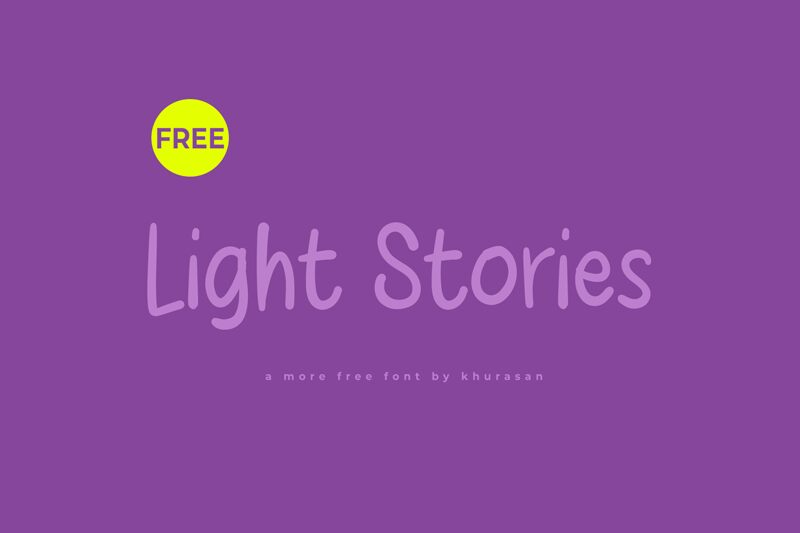
Light Stories
Light Stories, a captivating handwritten font crafted by Khurasan, exudes a sense of effortless elegance and genuine charm. Its flowing, organic strokes and subtle inconsistencies create an alluring, handcrafted aesthetic that evokes a sense of warmth and personality. The font's natural, unpretentious character lends itself to a wide range of applications, from editorial design and branding to invitations and stationery, seamlessly blending traditional charm with a modern sensibility.
This versatile font's unique characteristics make it a versatile choice for projects seeking to convey a personal, artisanal touch. Its fluid, expressive letterforms effortlessly capture the essence of handwritten communication, adding a touch of authenticity and character to any design. Whether you're crafting a captivating book cover, designing a bespoke wedding invitation, or curating a visually striking social media campaign, Light Stories by Khurasan offers a compelling typographic solution that will elevate your work with its timeless appeal.